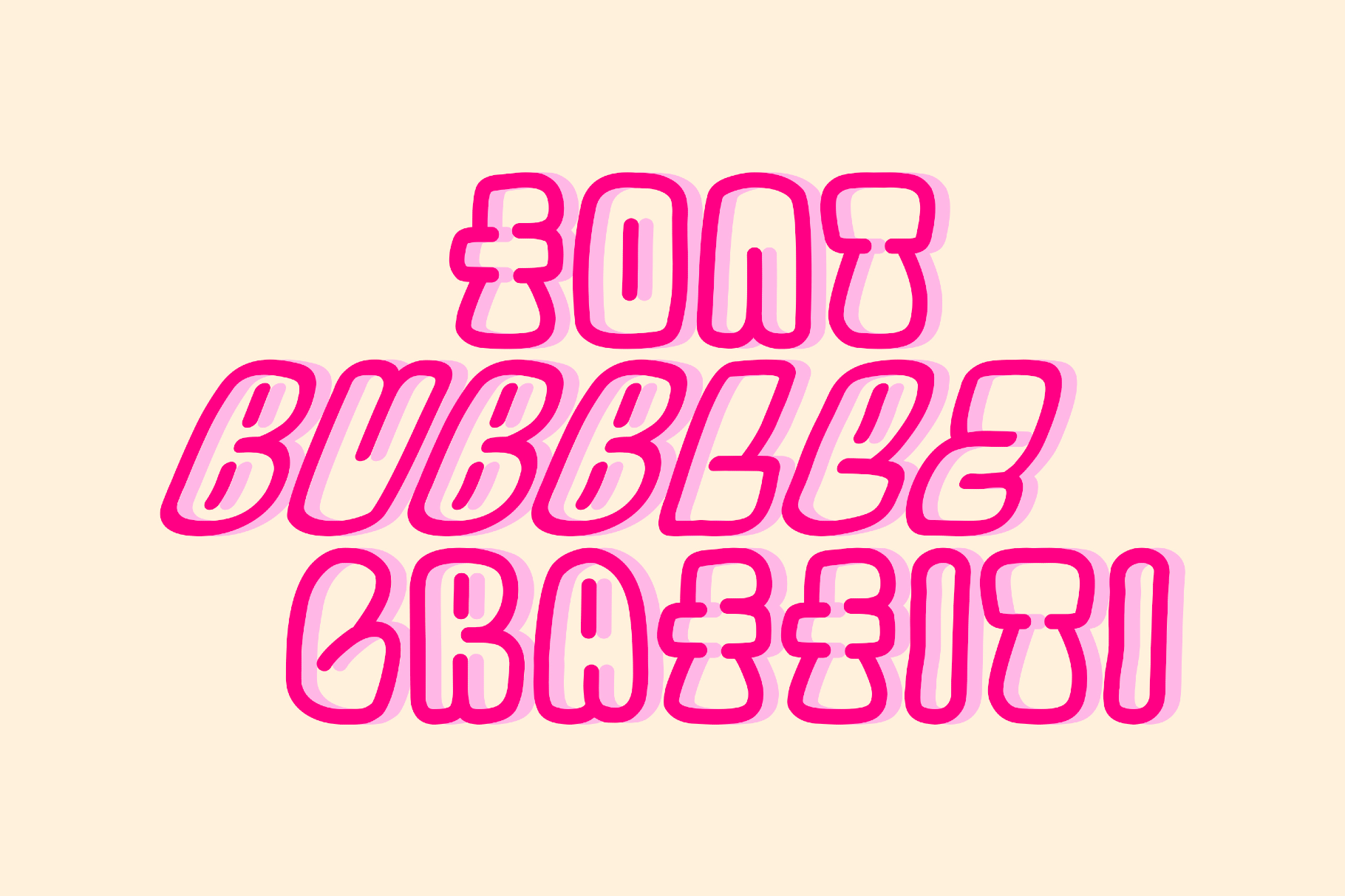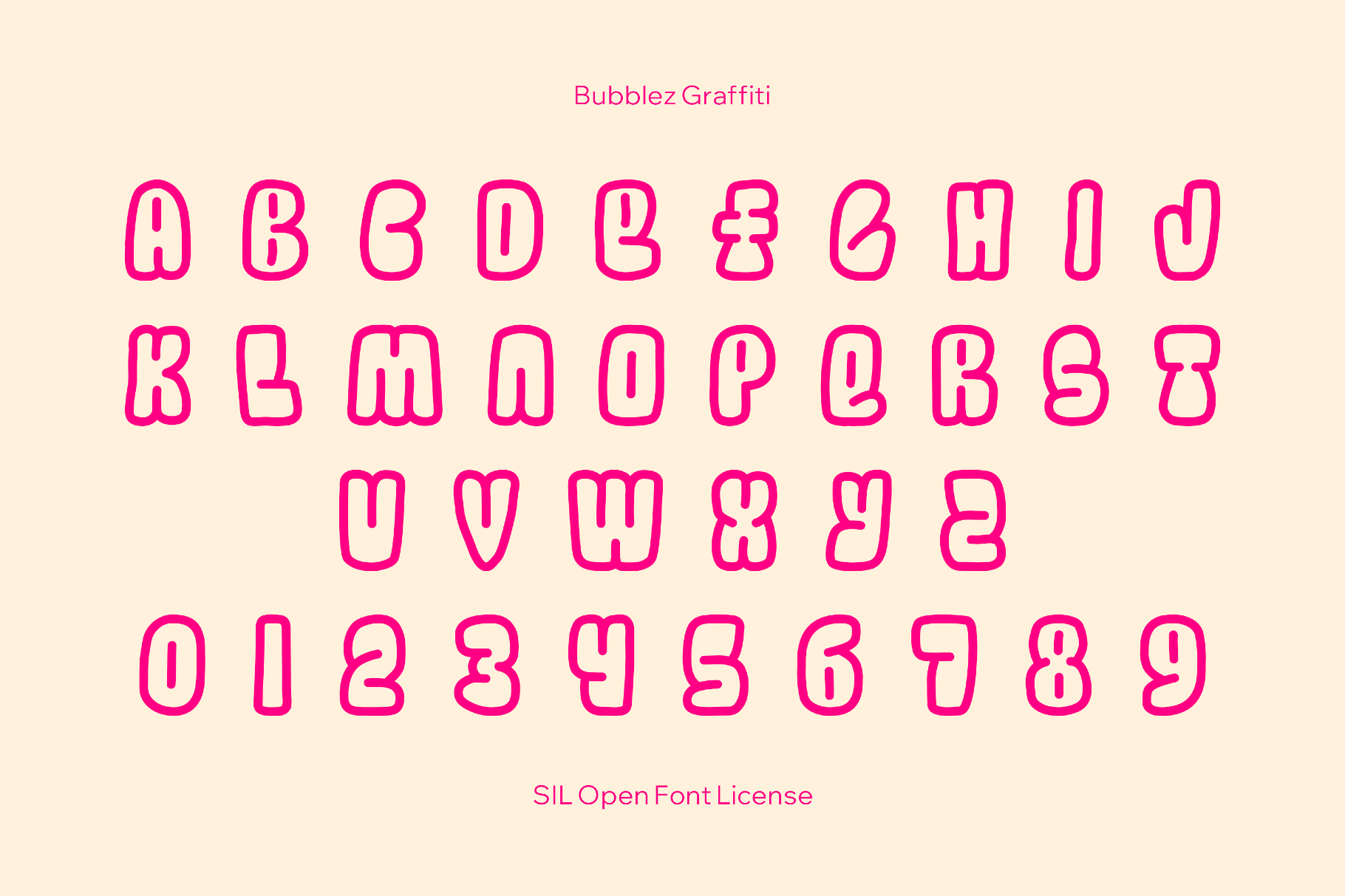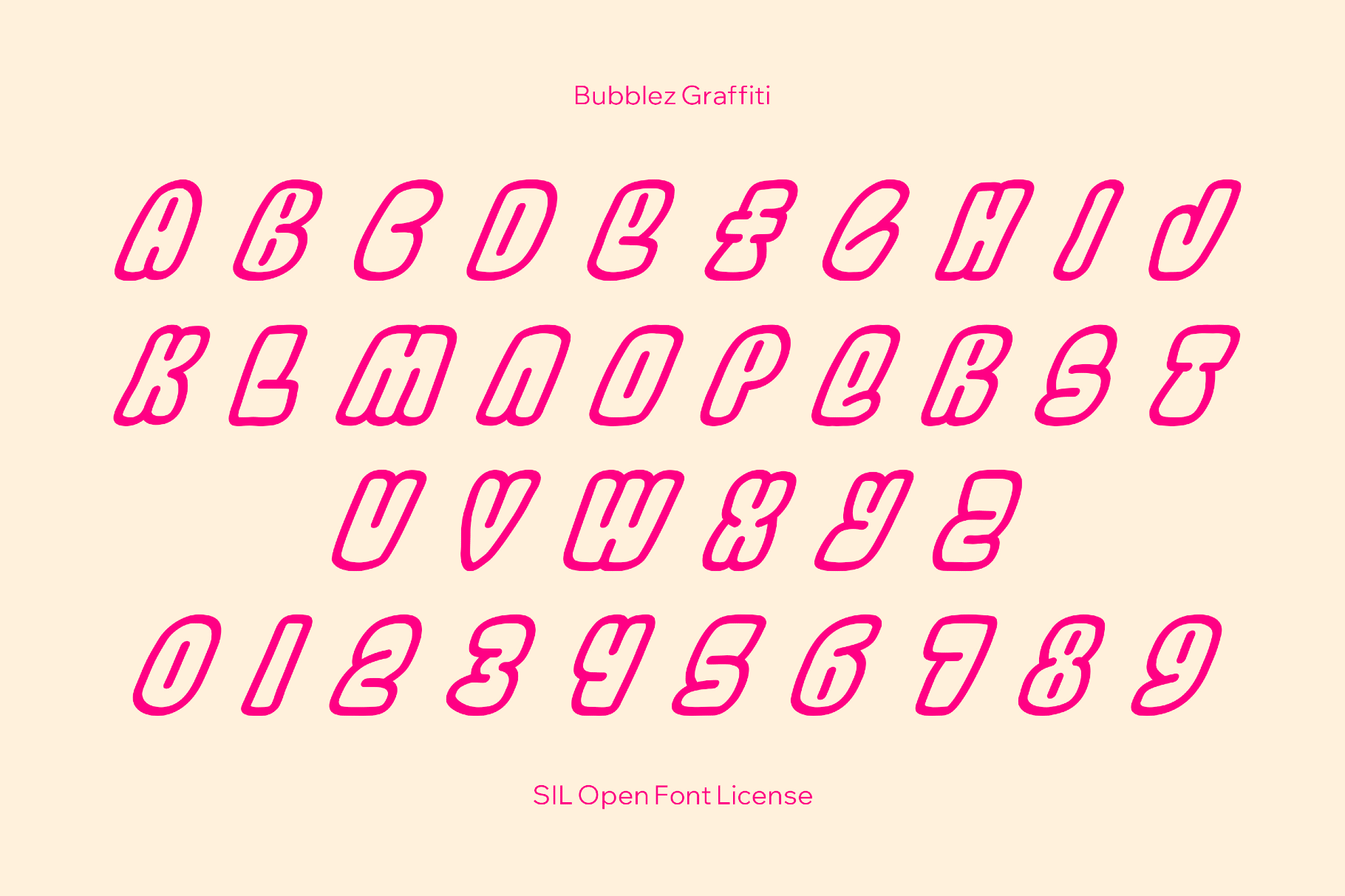
Bubblez Graffiti Font
Bubblez Graffiti is a fat, marker-sprayed bubble font that nods to 1990s subway lettering. The street-art feel is ideal for music artwork, poster headlines, youth branding, sticker packs, tag-style labels, skate graphics, social media titles, and YouTube and streaming thumbnails.
- Two styles: Regular and Italic.
- Uppercase letters only.
- International characters with multilingual support across Latin and Cyrillic scripts.